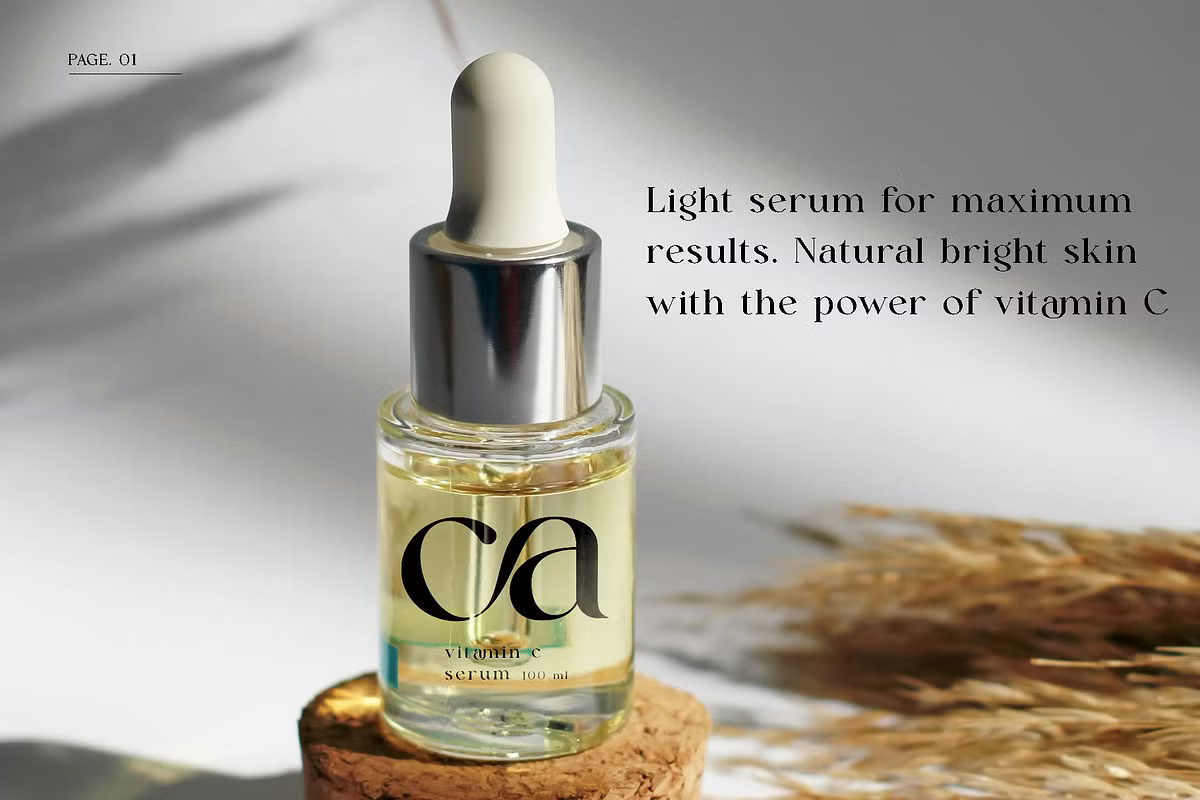
Kamean is a gentle, rounded serif from Muflieart. Letters such as k and m have soft curves and small sharp serifs, and the ligature sheet shows pairs like ca, ab and ah joined into single shapes. The serum bottle in the specimen, with a big ca logo, shows its beauty brand side.
The full font includes alternates, small caps, discretionary ligatures and multilingual support in OTF, TTF and WOFF. Lowercase reads especially well, which is less common in display serifs.
Best uses for Kamean
- Skincare and beauty labels
- Flower shops and florists
- Wedding invitations
- Magazine titles
- Website headers for lifestyle brands
Pair Kamean with a clean sans. Jost works for small text. Lato keeps body text simple. For a script accent, try Great Vibes.
Kamean Serif Font